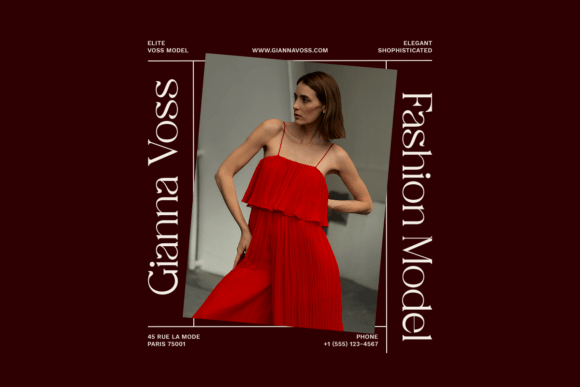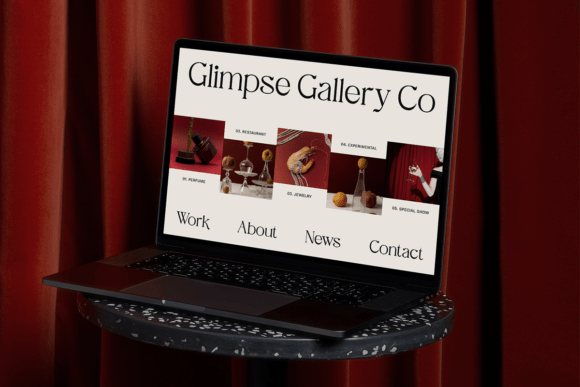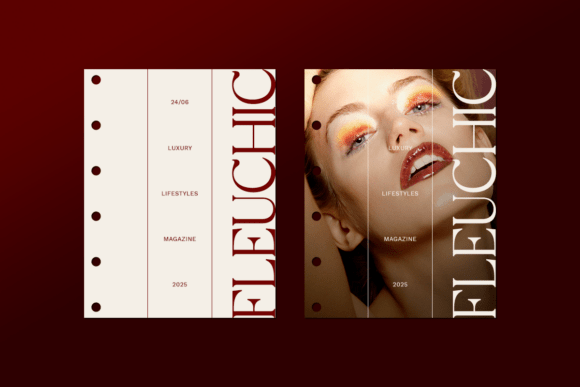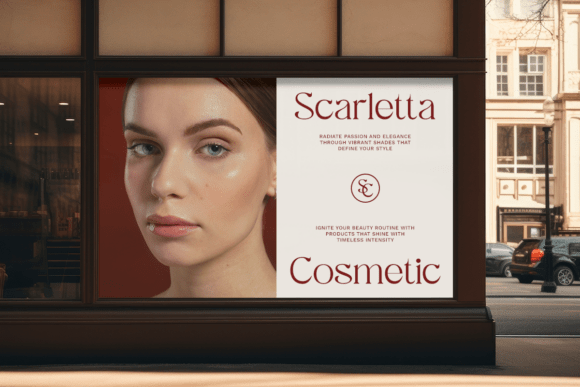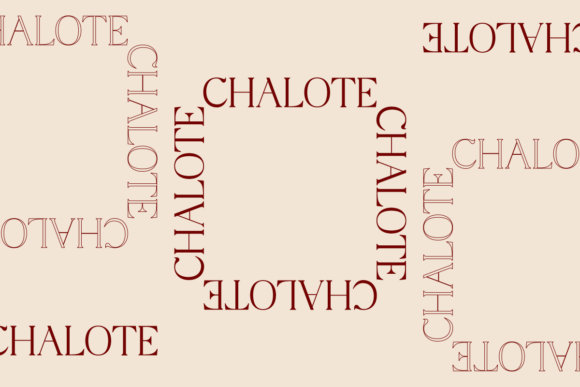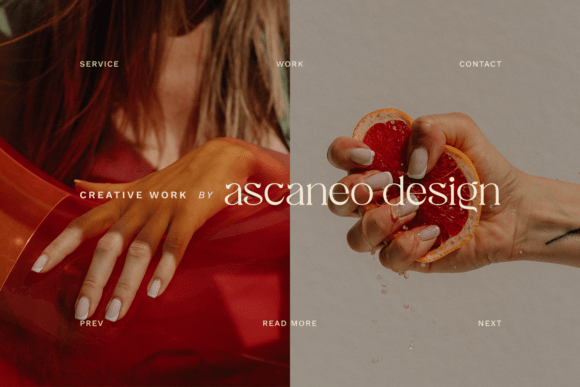
Cagore Font: Elevate Your Designs with Elegance and Sophistication
In the world of typography, fonts play a crucial role in conveying the tone and personality of a brand or design. For those seeking to add a touch of luxury and exclusivity to their projects, the Cagore font is an excellent choice. This sophisticated display serif font seamlessly blends elegance with artistic flair, making it perfect for high-end branding, editorial layouts, wedding invitations, gourmet packaging, and more.
The Characteristics of Cagore Font
Cagore is distinguished by its bold, flowing letterforms and refined serifs. Each character is carefully crafted to exude a sense of sophistication and refinement, making it an ideal choice for designers and crafters looking to elevate their work. The font’s classic yet artistic design ensures that it can be used in a variety of contexts, from traditional editorial layouts to modern branding projects.
Key Features of Cagore Font
• Bold and Flowing Letterforms: Cagore’s characters are designed with a bold, flowing style that commands attention while maintaining an air of elegance.
• Refined Serifs: The font features refined serifs that add to its sophisticated and luxurious feel.
• Timeless Appeal: Cagore’s design is timeless, ensuring that your projects will remain stylish and relevant for years to come.
• Versatility: Suitable for a wide range of applications, including high-end branding, editorial layouts, wedding invitations, gourmet packaging, and more.
Applications of Cagore Font
Cagore’s versatility makes it an excellent choice for various design projects. Here are some of the ideal applications for this elegant font:
High-End Branding
For luxury brands, establishing a sophisticated and exclusive image is crucial. Cagore font helps achieve this with its bold and elegant letterforms, perfect for logos, business cards, and brand guidelines.
Editorial Layouts
Elevate your editorial designs, such as magazines, newspapers, and blogs, with Cagore’s refined serifs and classic appeal. It’s ideal for headings, titles, and pull quotes.
Wedding Invitations
Add a touch of luxury and romance to wedding invitations and stationery with Cagore. Its elegant design ensures that your wedding materials stand out with sophistication.
Gourmet Packaging
For gourmet food and beverage brands, Cagore offers a stylish way to convey luxury and quality. It’s perfect for product labels, packaging, and marketing materials.
Why Choose Cagore Font?
Choosing Cagore font for your design projects offers several advantages:
• Elegance and Sophistication: Instantly elevate your designs with a sophisticated and elegant look.
• Versatility: Use Cagore across various design projects, from branding to editorial and packaging.
• Timeless Design: Ensure your projects remain stylish and relevant with a font that stands the test of time.
• High Impact: Make a strong impression with bold, flowing letterforms that capture attention.
Cagore font is a powerful tool for designers and crafters looking to add a touch of luxury and exclusivity to their projects. With its sophisticated display serif design, bold and flowing letterforms, and refined serifs, Cagore is perfect for high-end branding, editorial layouts, wedding invitations, gourmet packaging, and more. Elevate your designs with the elegance and sophistication that Cagore has to offer.
With Cagore font, you can transform your designs, adding a level of sophistication and elegance that resonates with your audience. Whether you’re working on high-end branding, editorial layouts, or special event materials, Cagore is the perfect choice for those who appreciate the finer details in design.